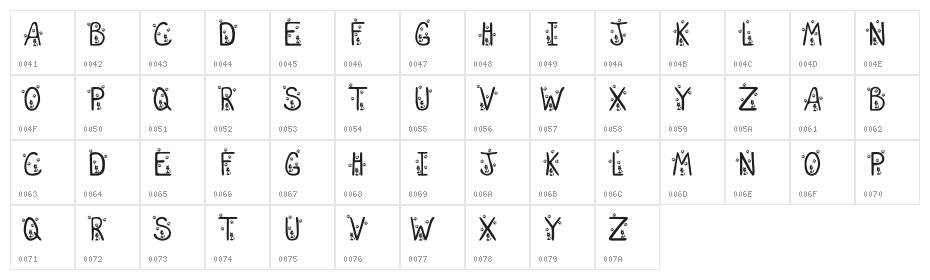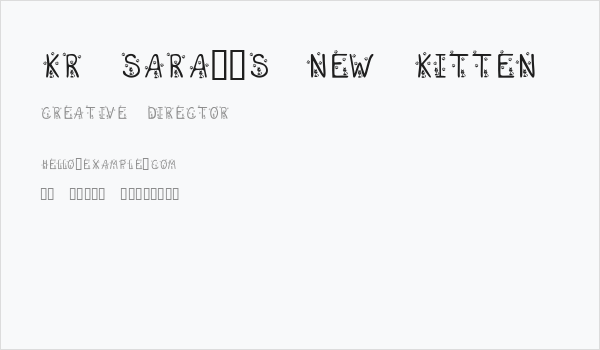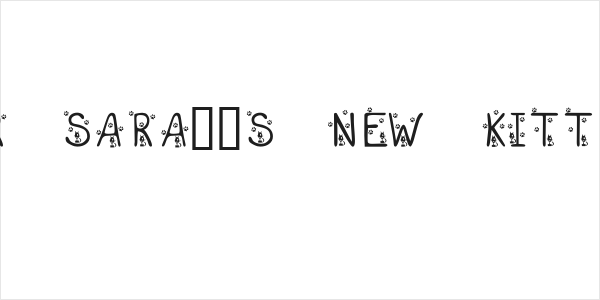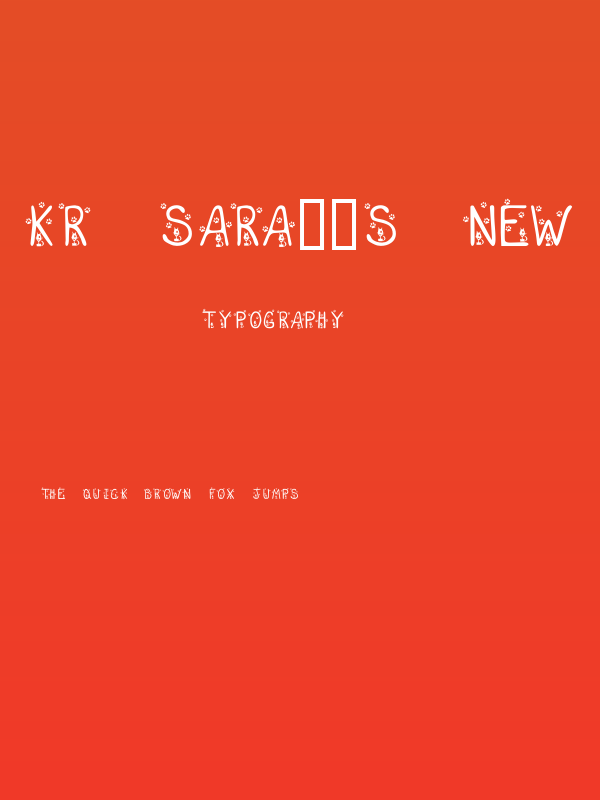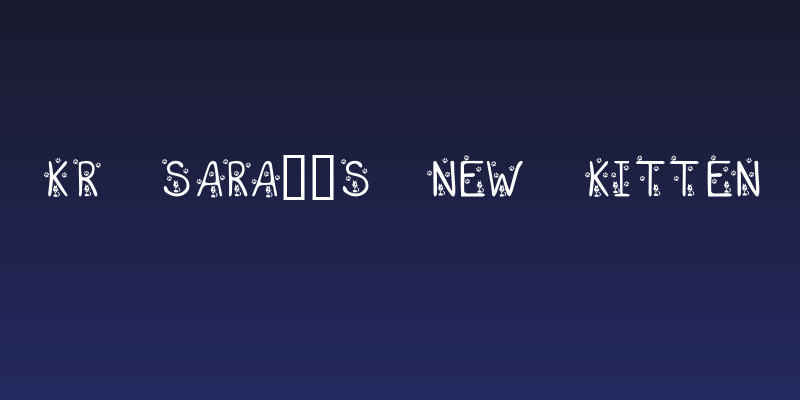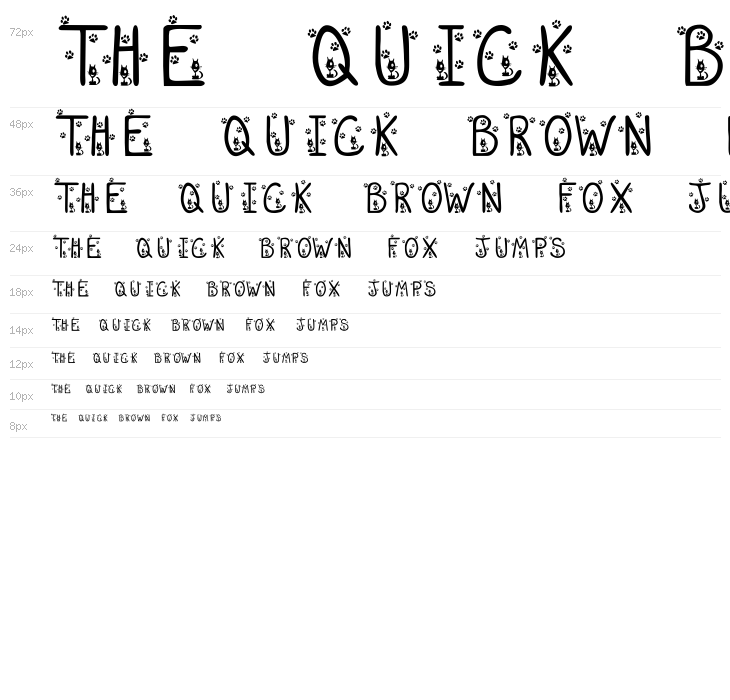
KR Sara's New Kitten Font
KR Sara's New Kitten Description
This playful and whimsical font features charming cat silhouettes and paw prints integrated into each letter, creating a delightful and unique design. The uppercase letters are bold and prominent, with each character adorned by a small cat figure either sitting or playing, accompanied by scattered paw prints. The font exudes a sense of fun and creativity, making it ideal for projects that require a touch of personality and charm. The absence of lowercase letters and numbers suggests a focus on decorative use, while the special characters maintain the playful theme.
| Proposed Projects | Ideal for children's books, pet-related branding, playful invitations, and decorative posters. |